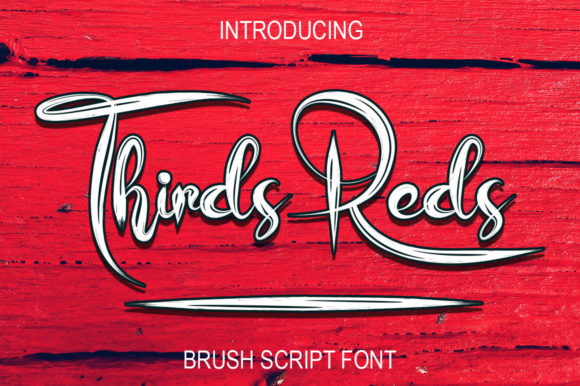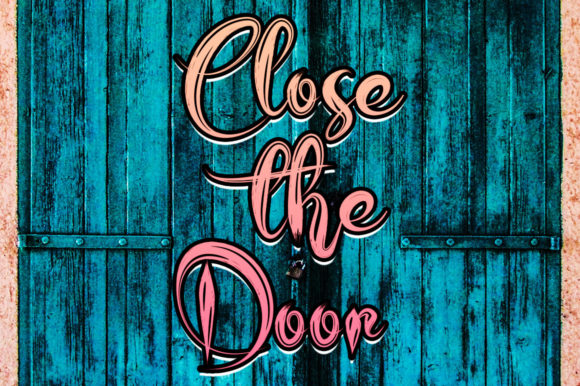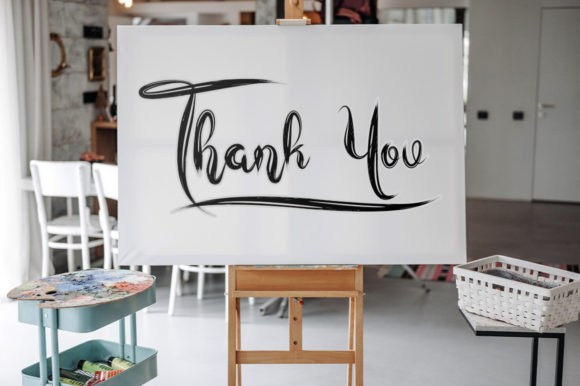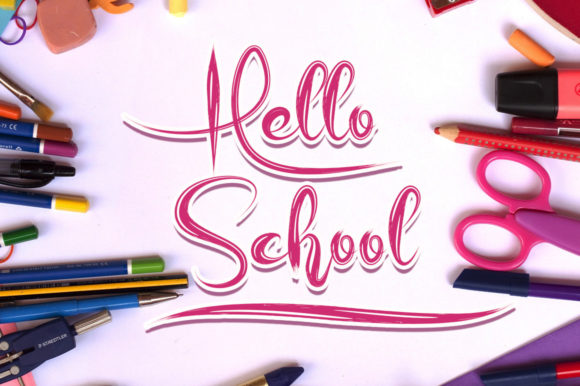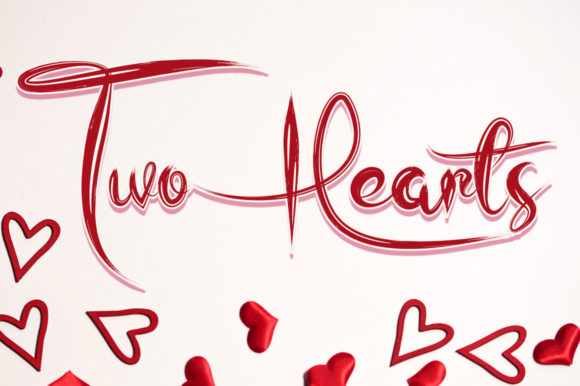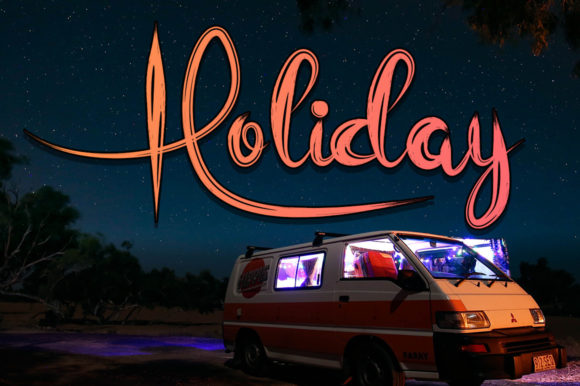
Thirds Reds Font
About Thirds Reds Font
Thirds Reds is a stylish and brushed script font. No matter the topic, this font will be an incredible asset to your fonts’ library, as it has the potential to elevate any creation.